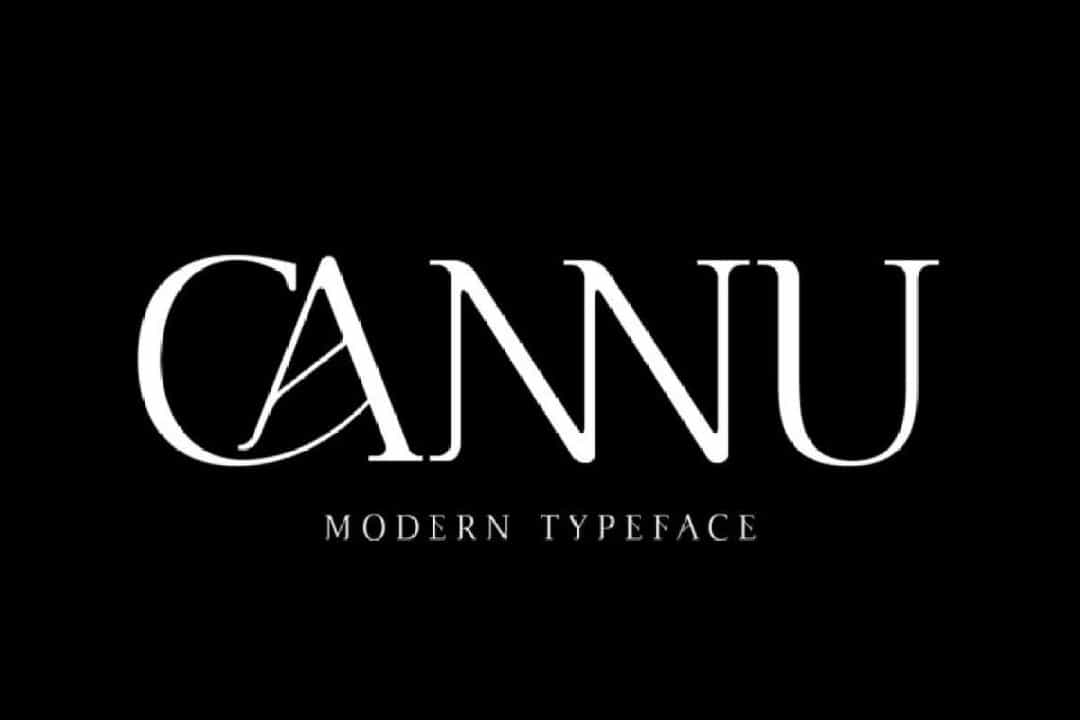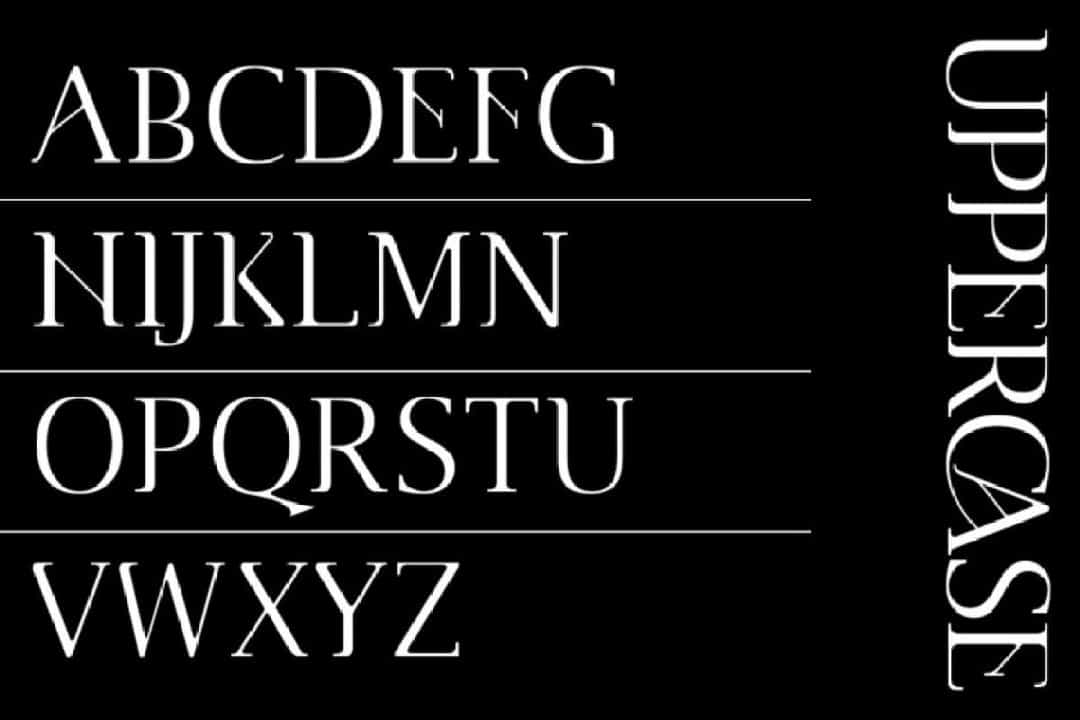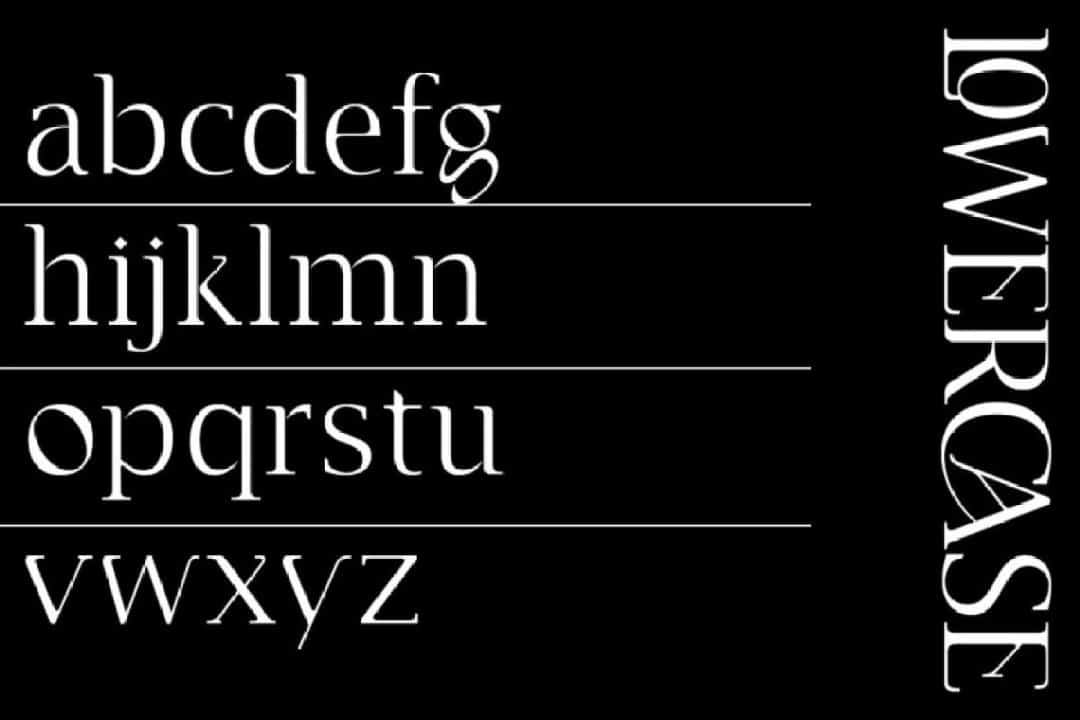
Cannu Serif Font is an attractive contemporary font. Perfect for business use and featuring clean edges for an authentic handcrafted appearance. Cannu font is an ideal choice for anyone searching for simple yet modern, minimalistic and stylish designs.